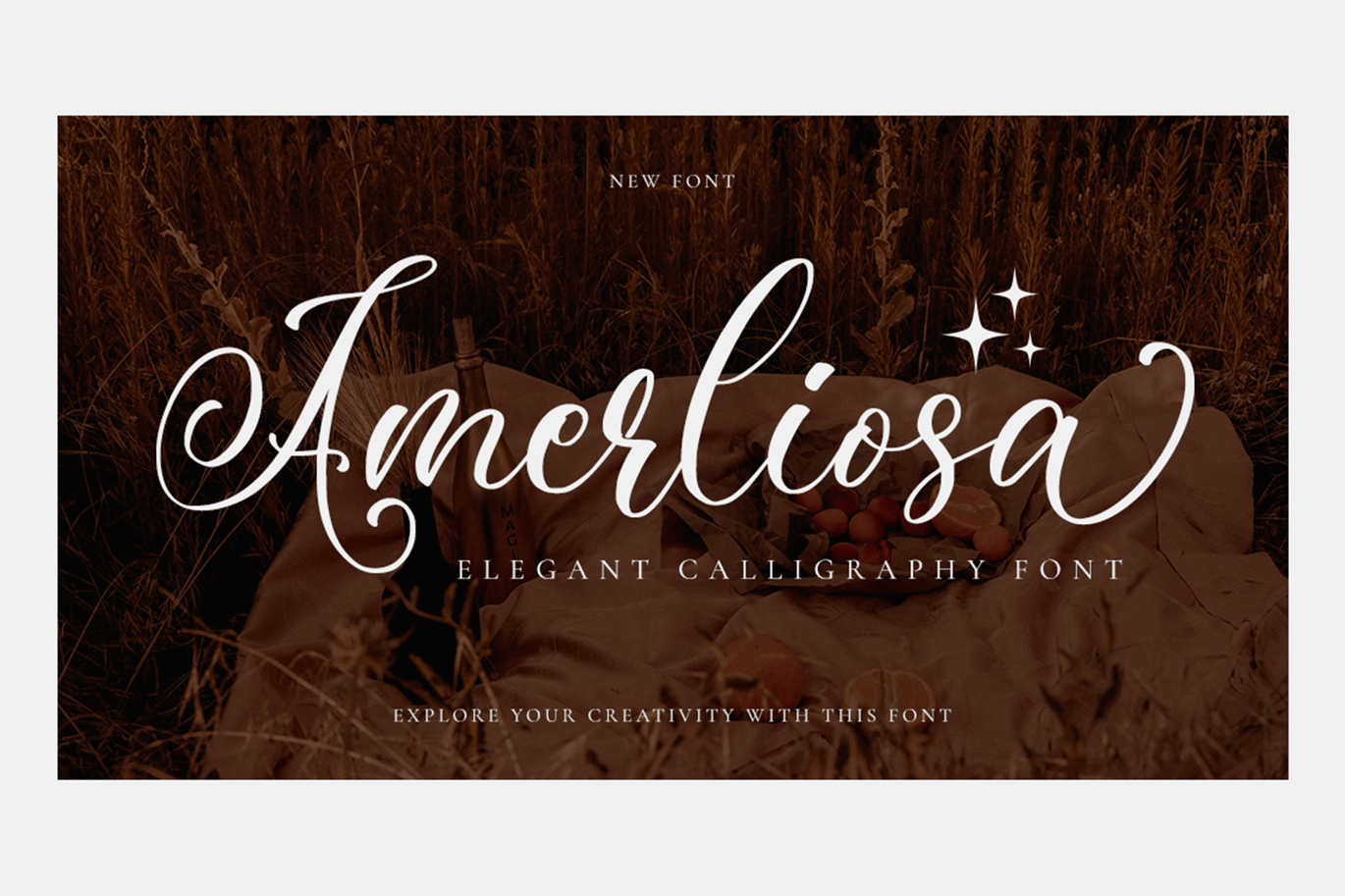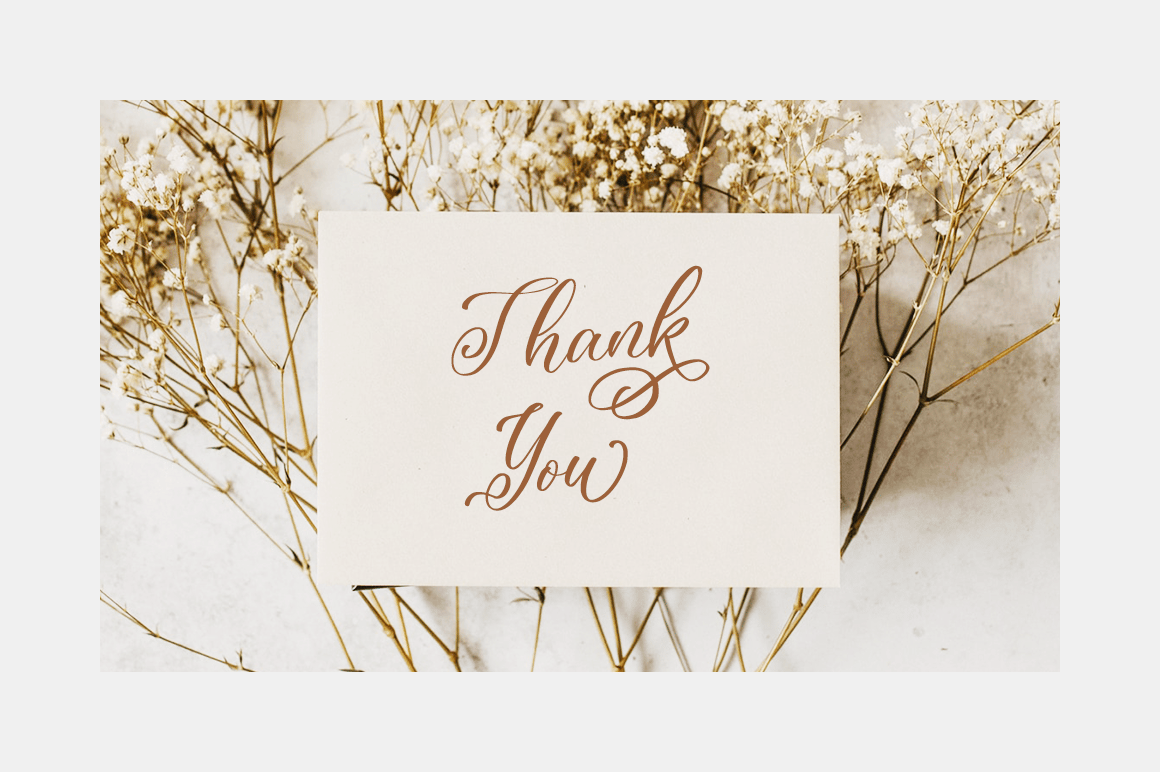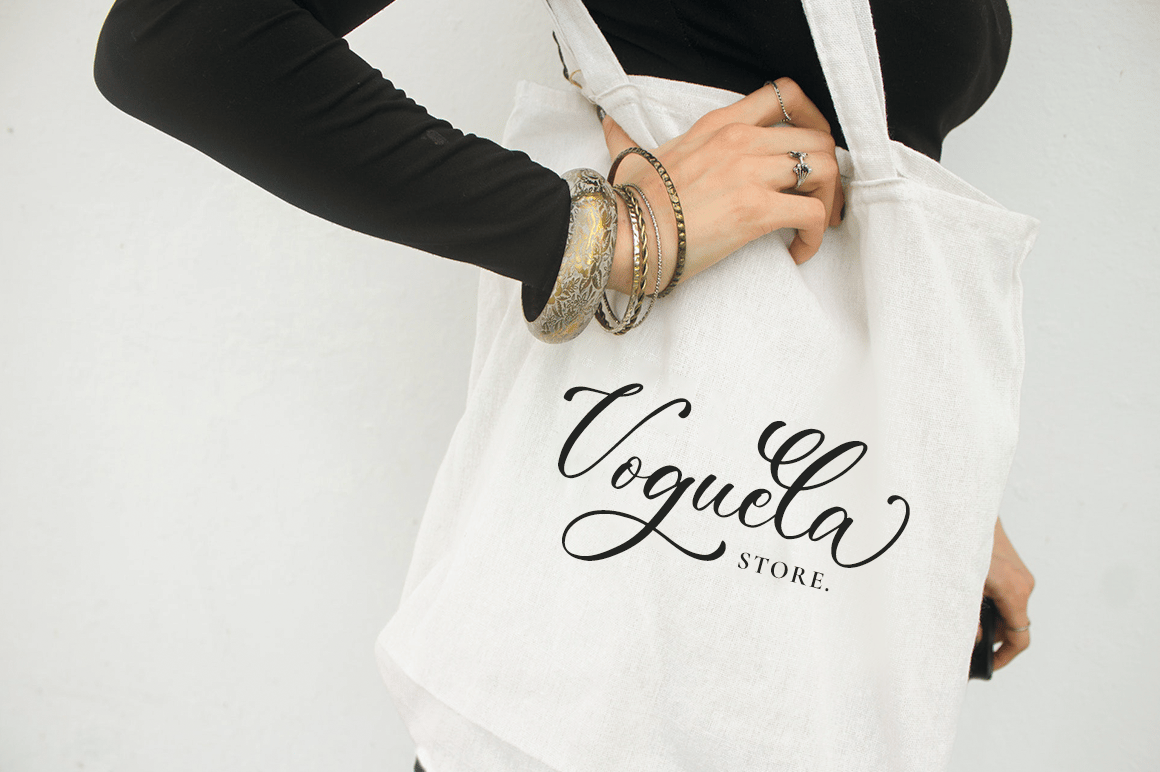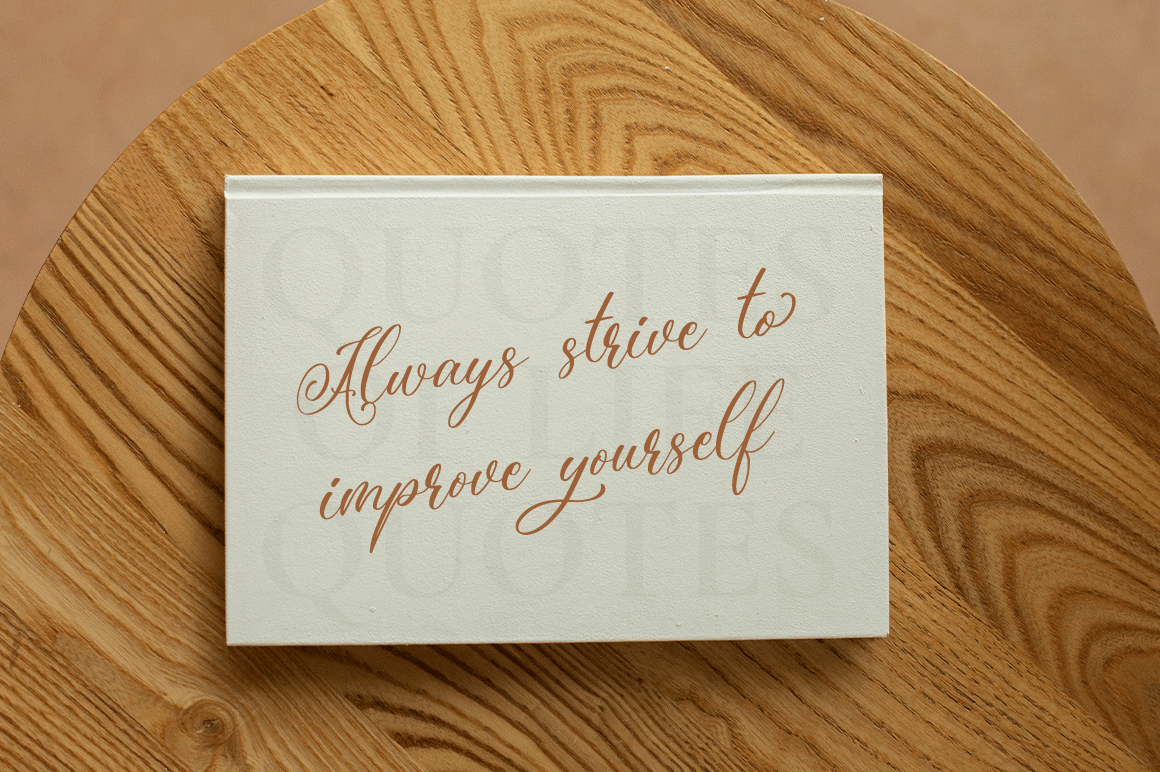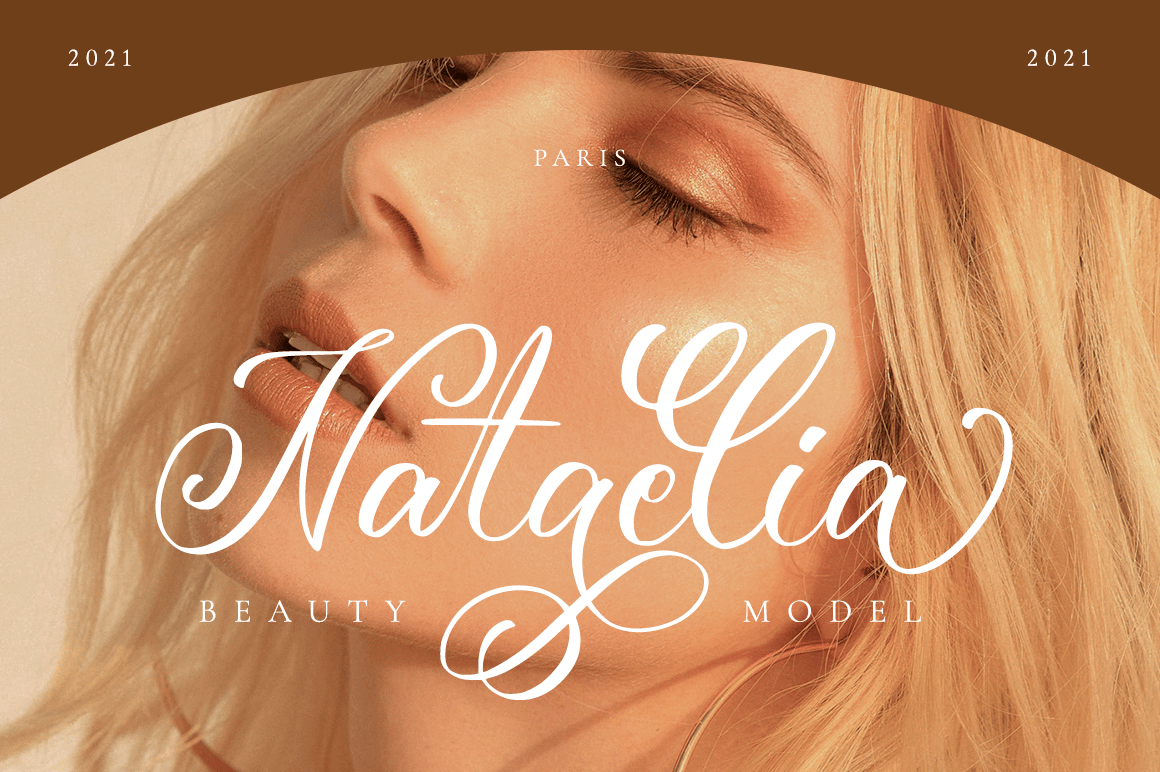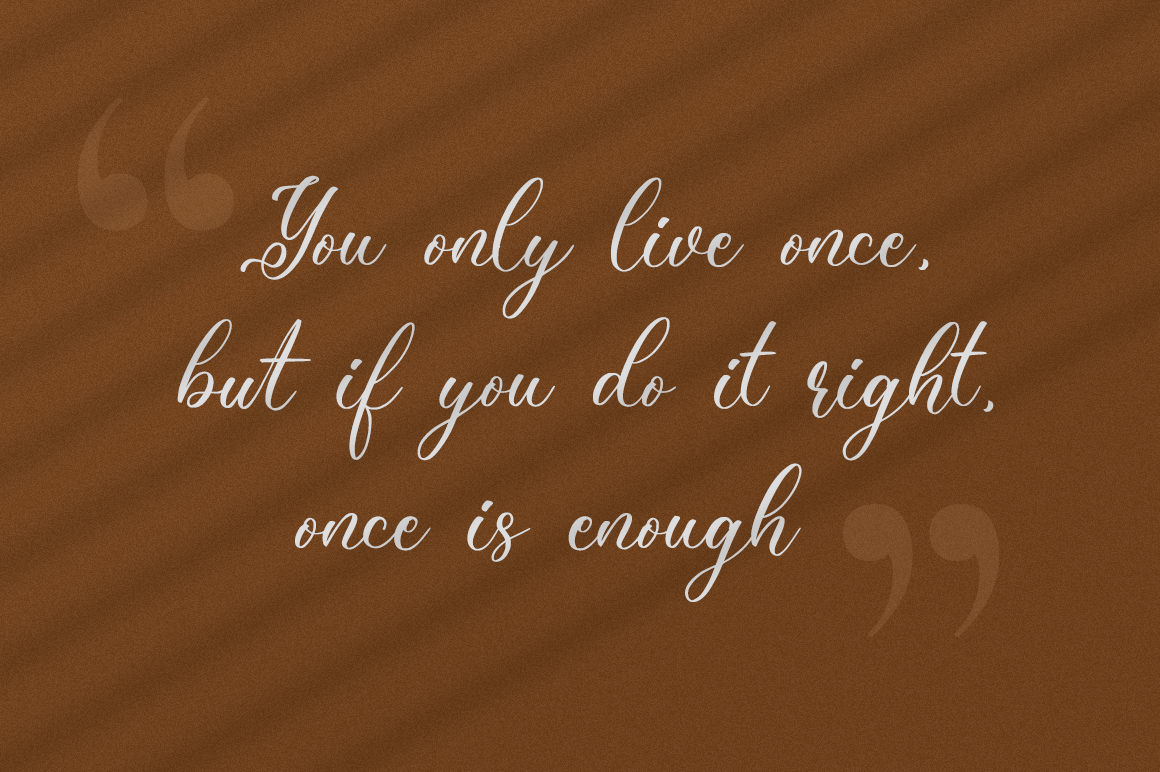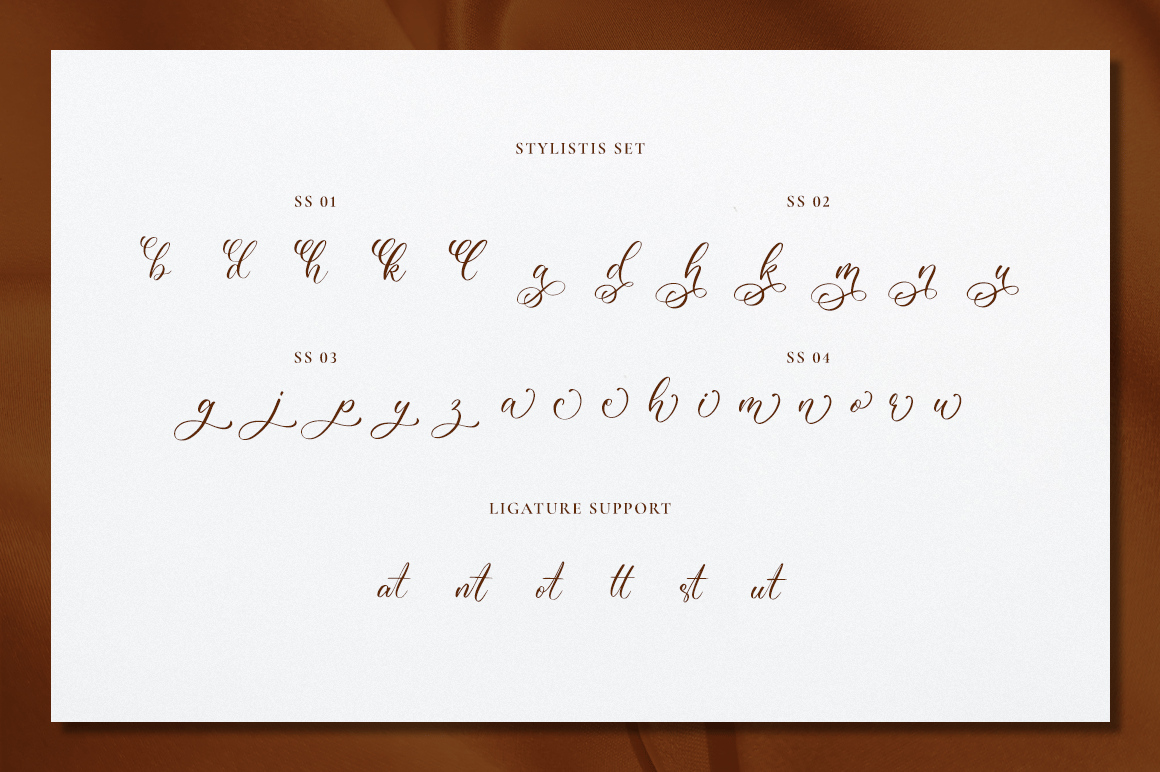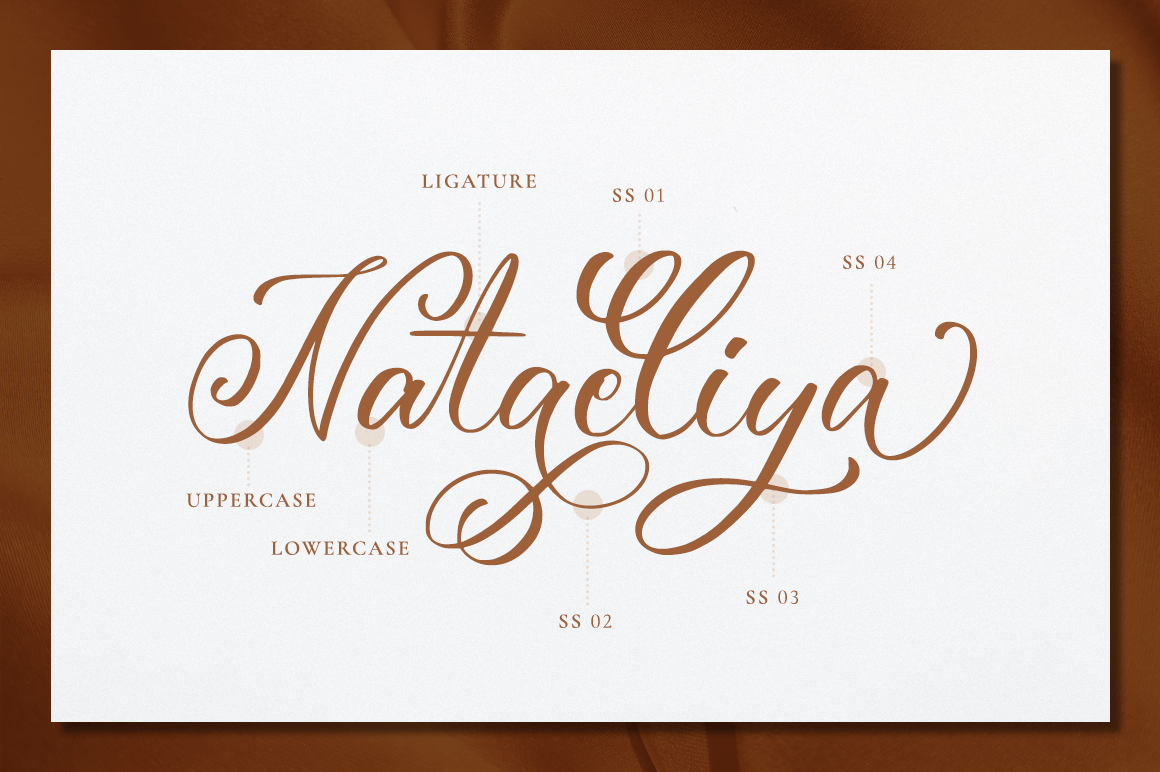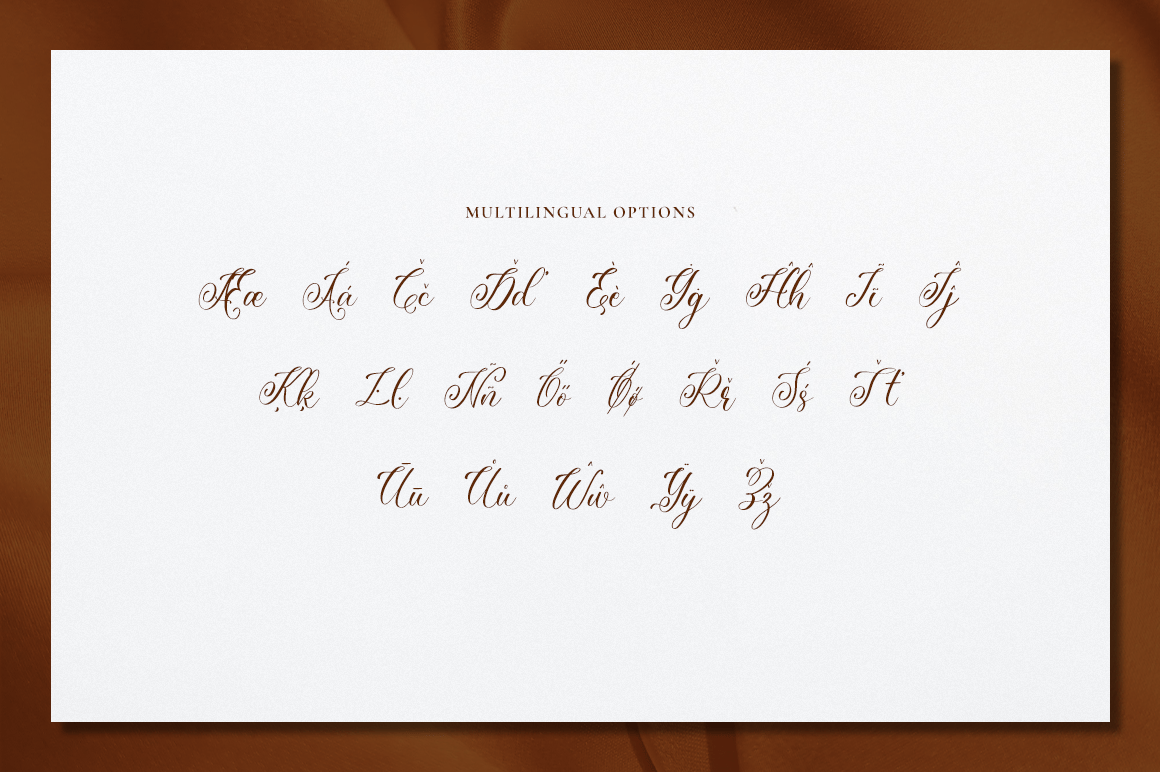
Amerliosa – Elegant Font
Amerliosa is a lovely script font featuring charming, playful characters that seem to dance along the baseline. Add this font to your most creative ideas, and notice how it makes them stand out!